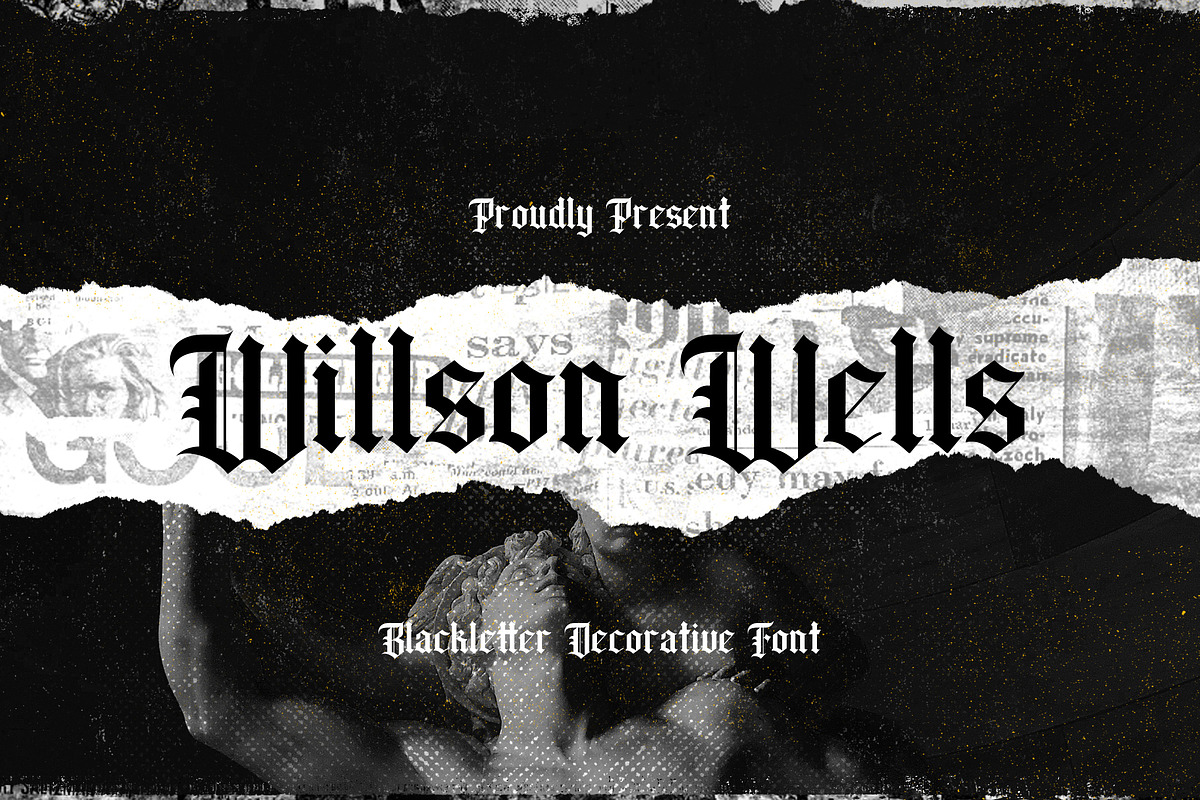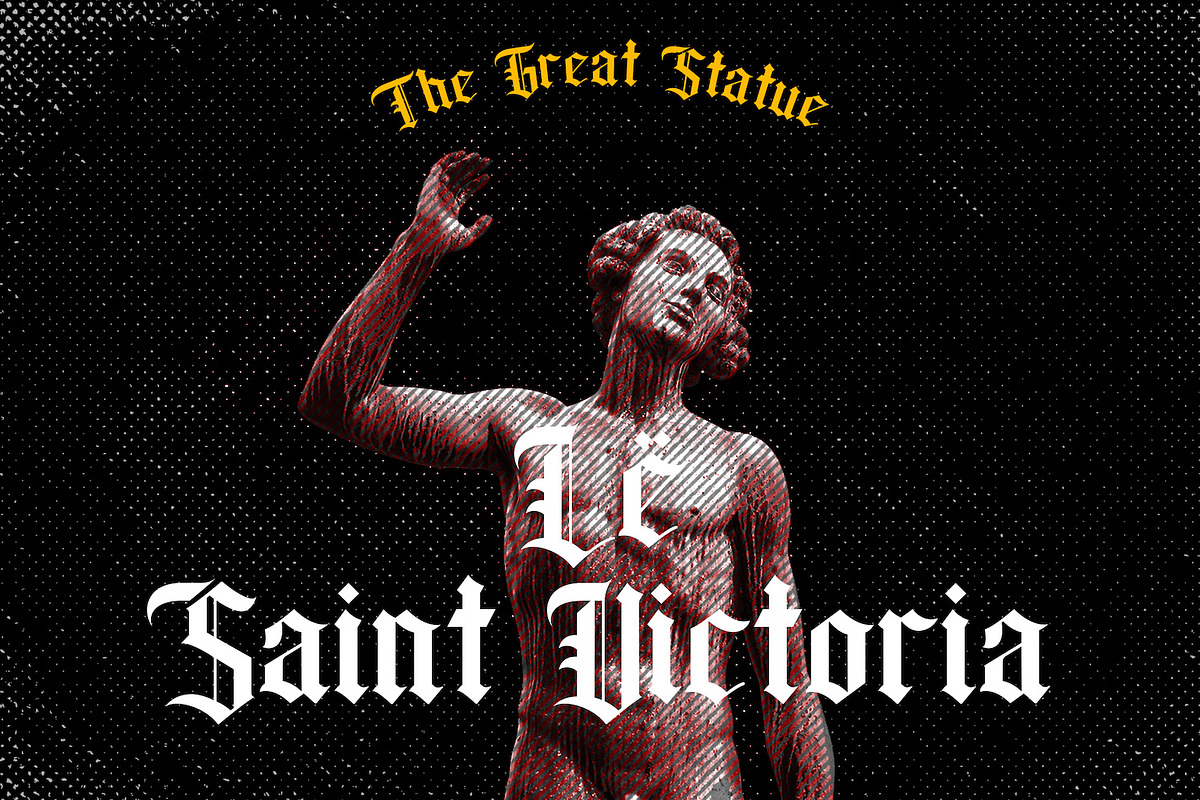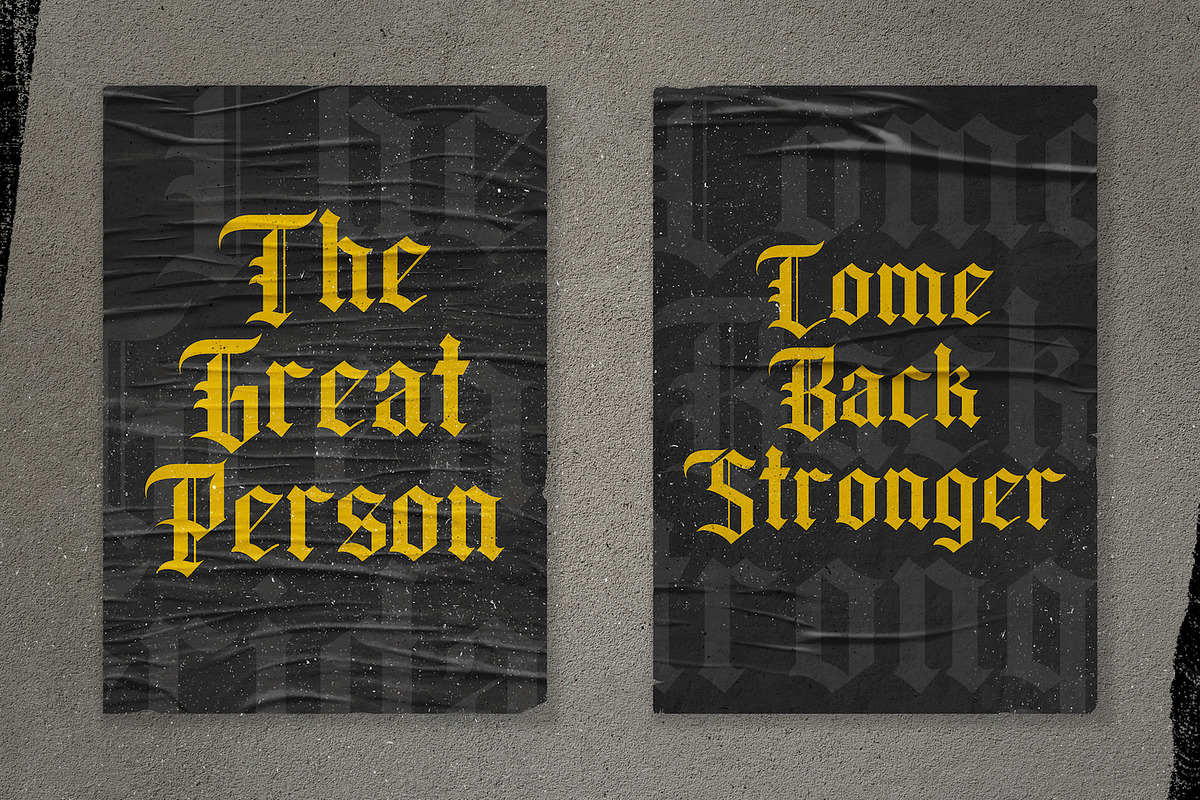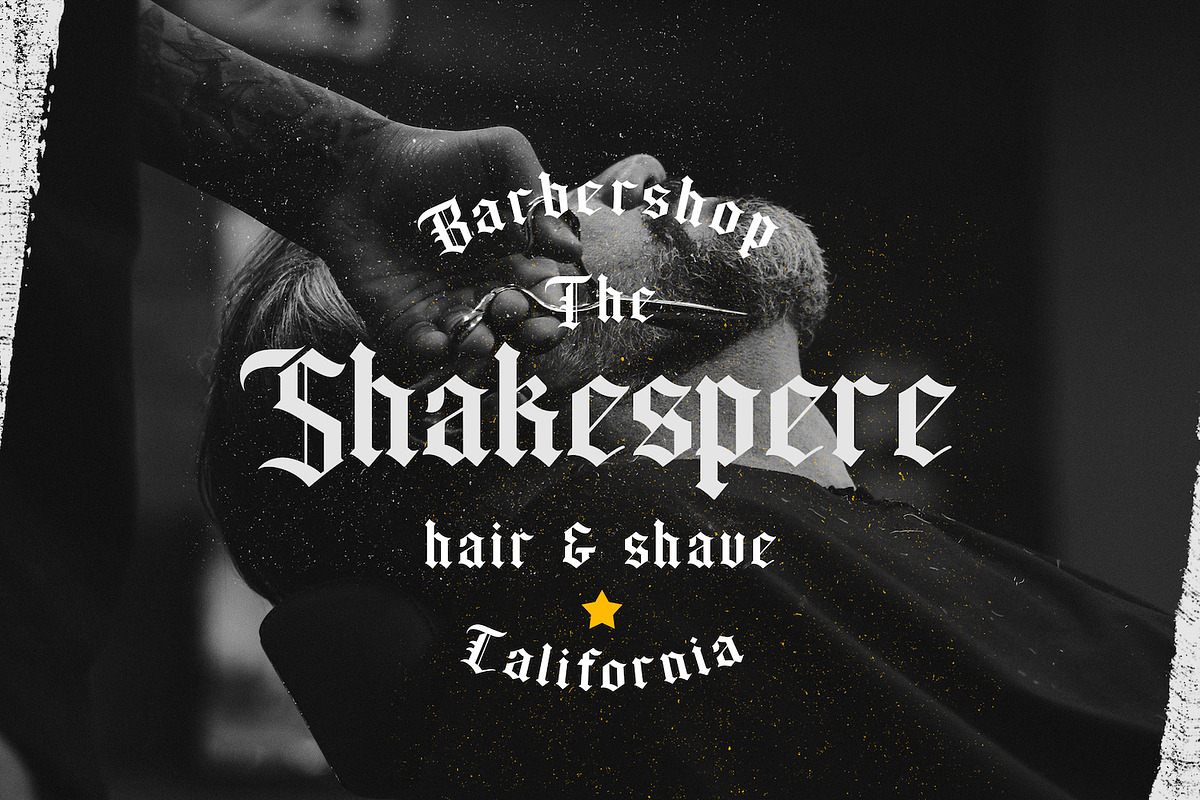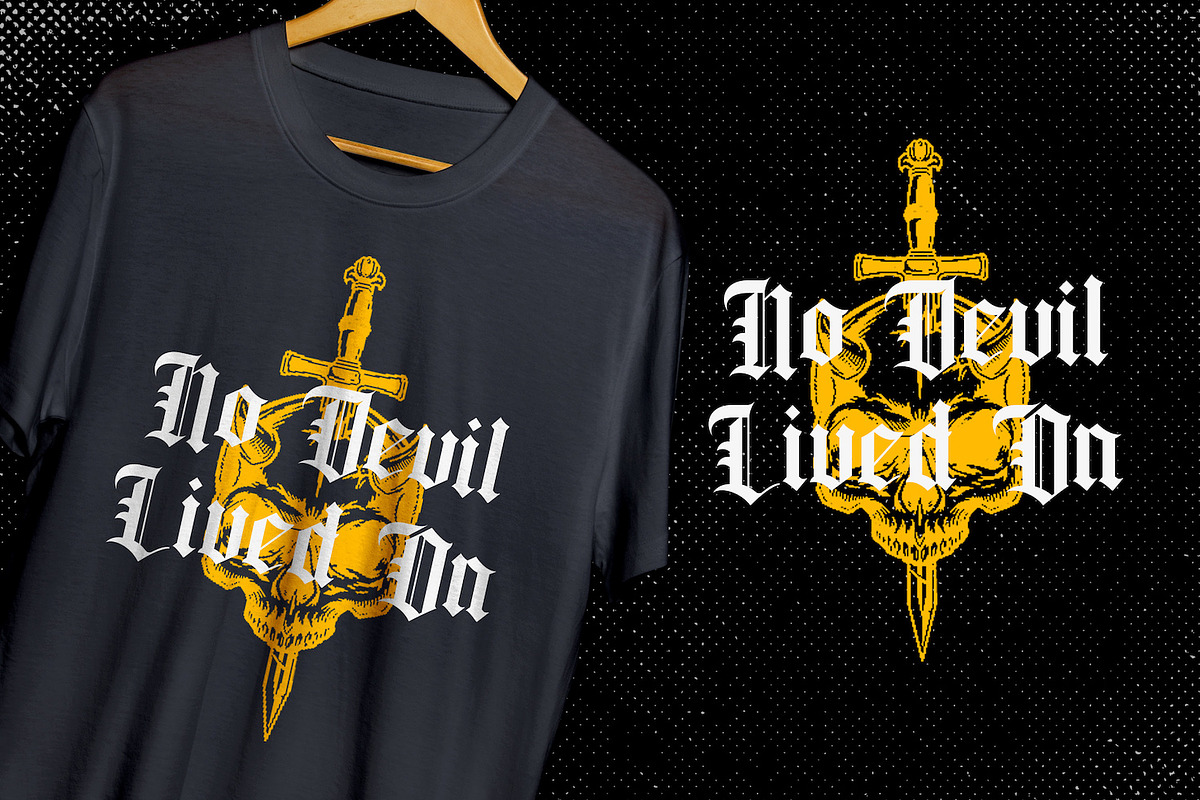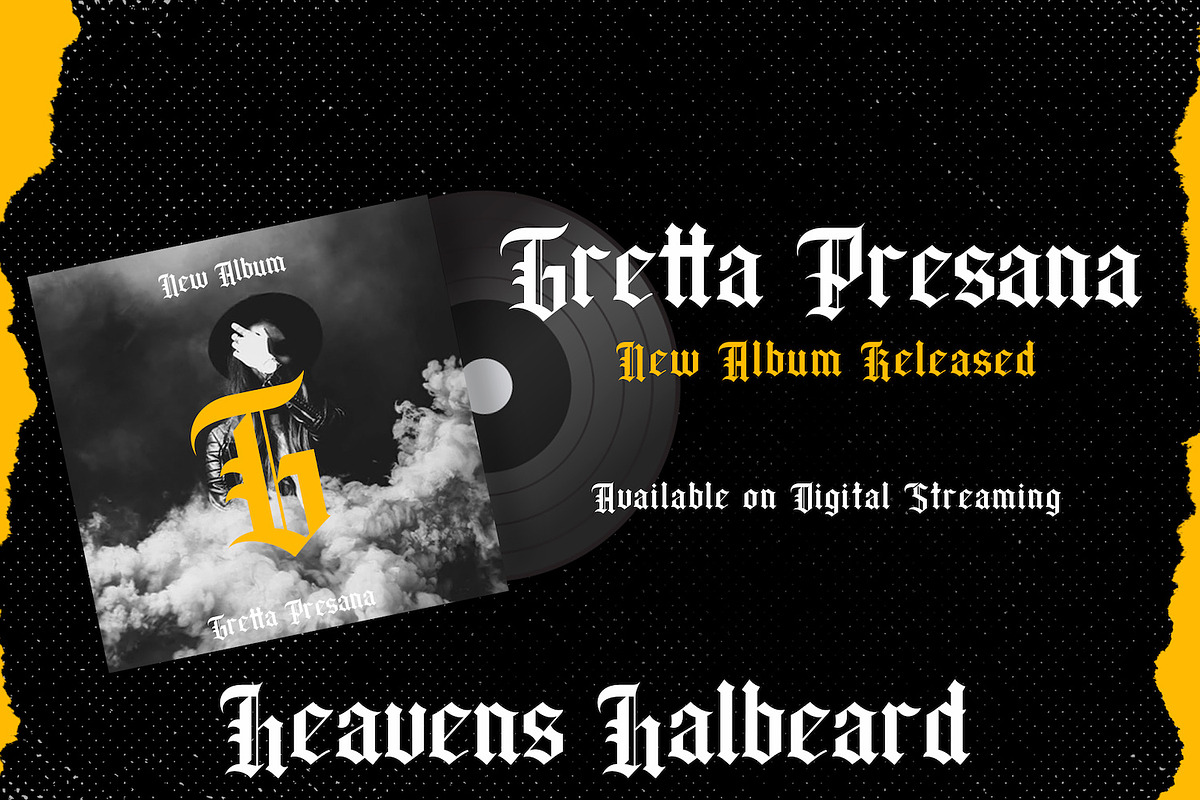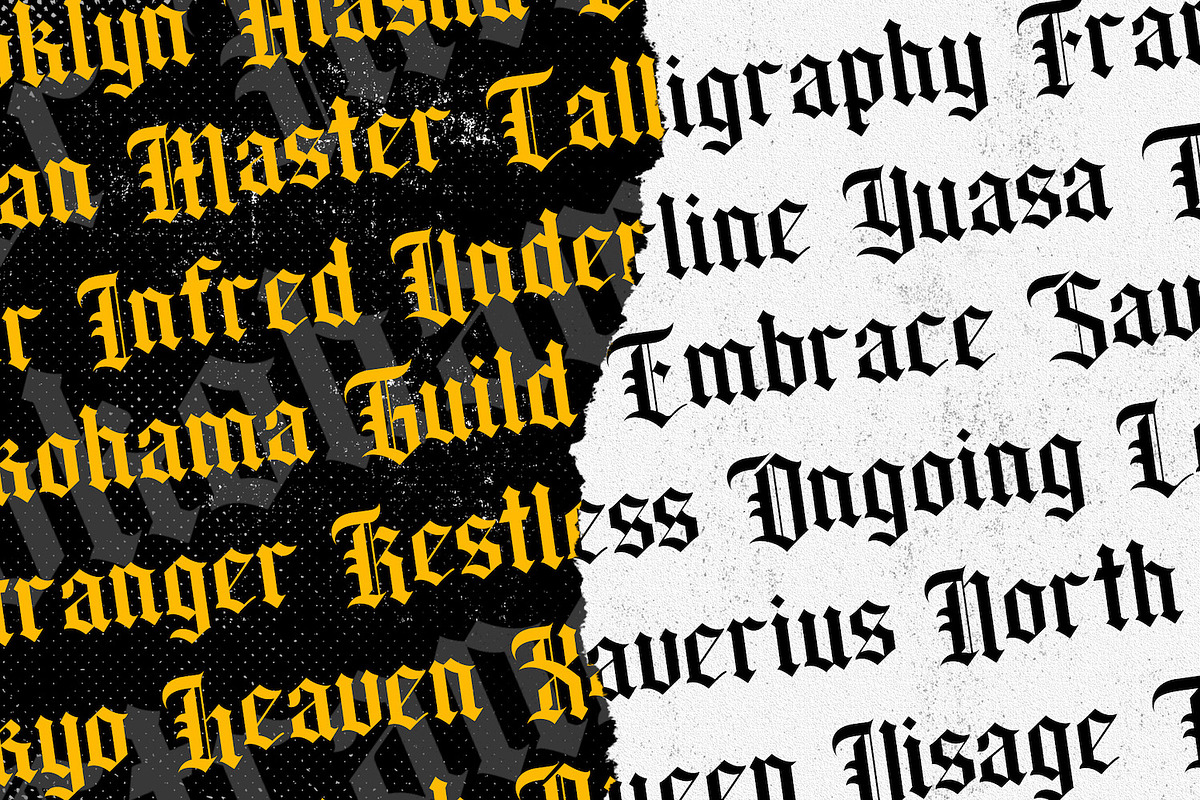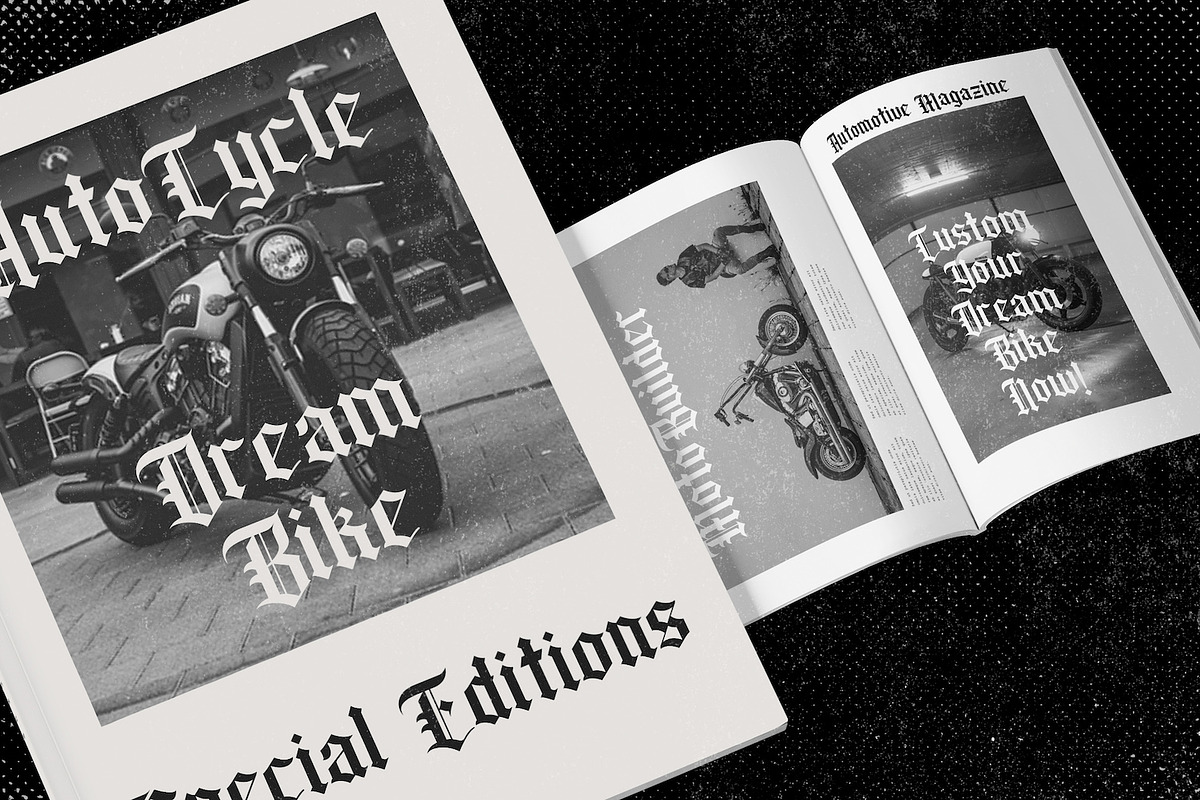
Wilson Wells - Blackletter Font
Introducing Wilson Wells - Blackletter Decorative Font
The Wilson Wells is an unique blackletter decorative font. It’s suitable for use in various projects such as gothic lettering, tattoo, headlines, posters, magazines, newspapers, t-shirts, labels, and every other design which needs a striking typeface.